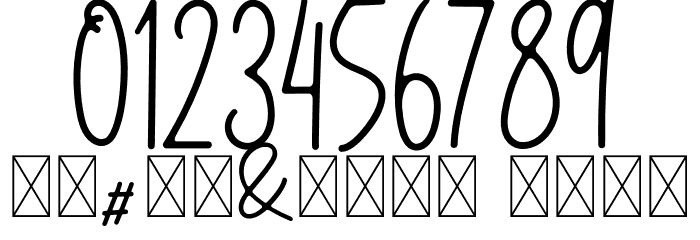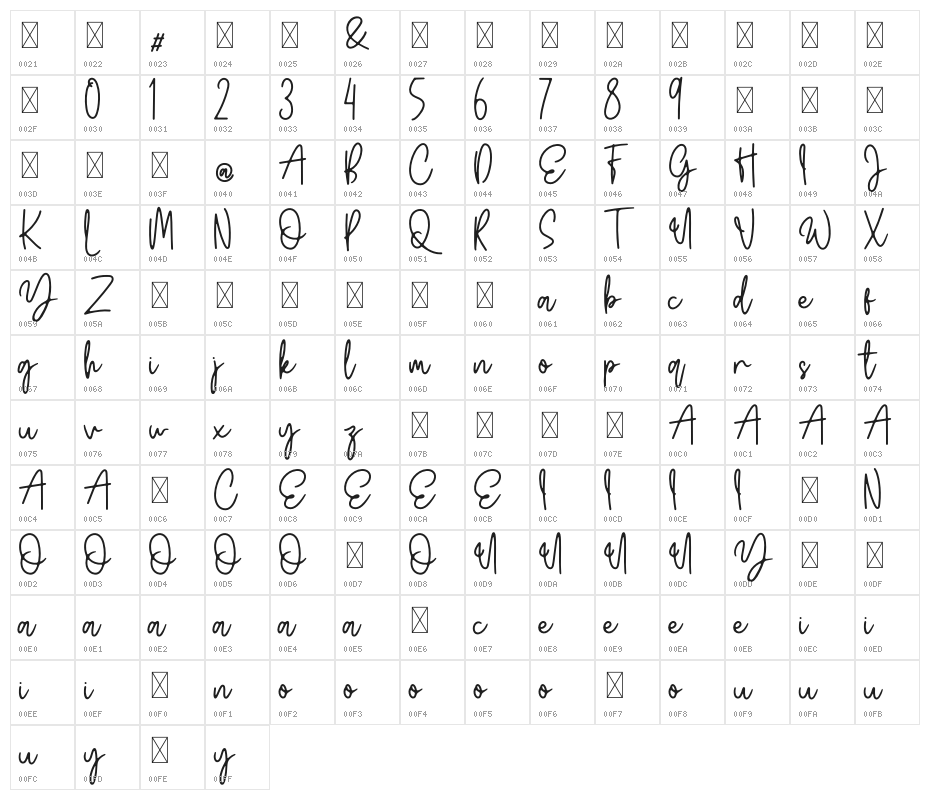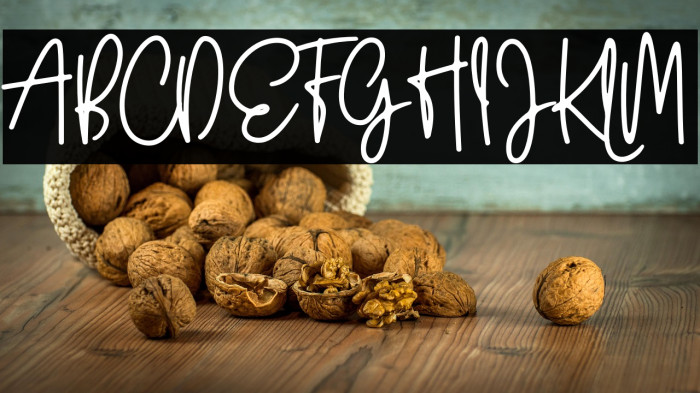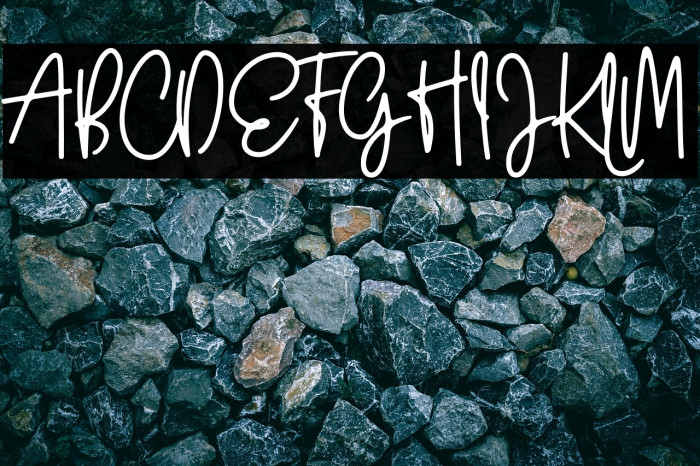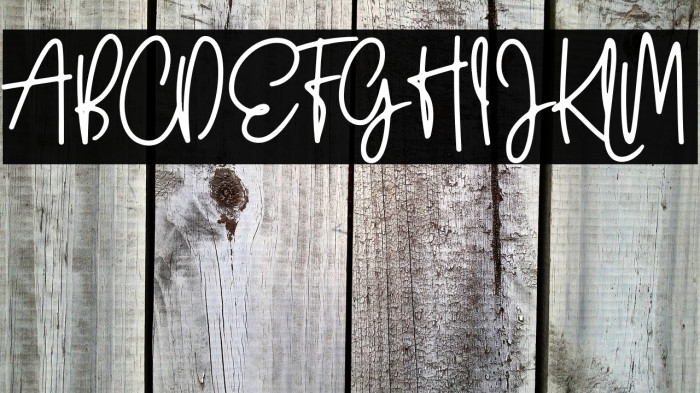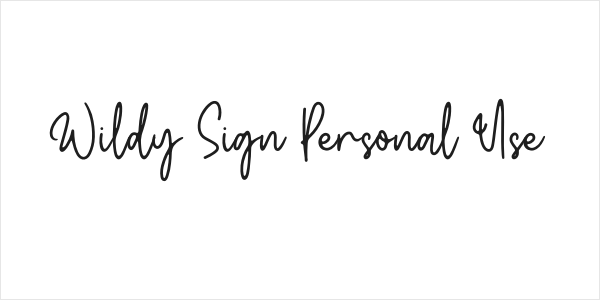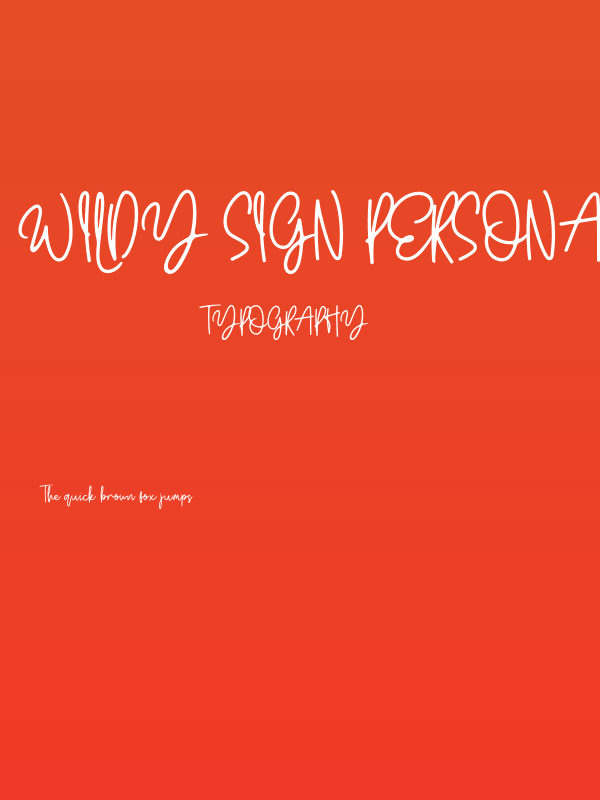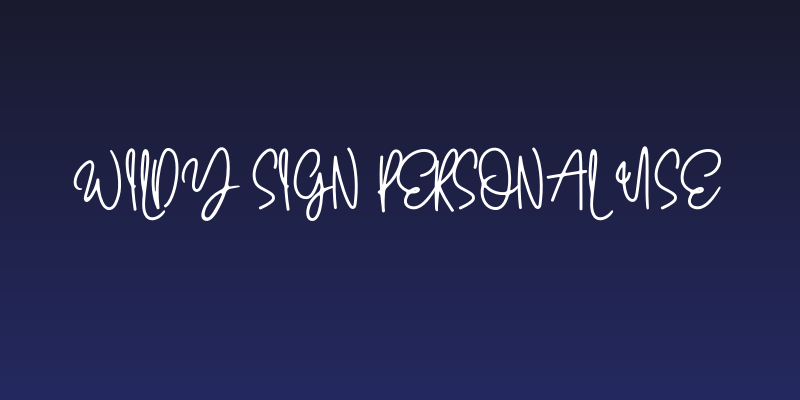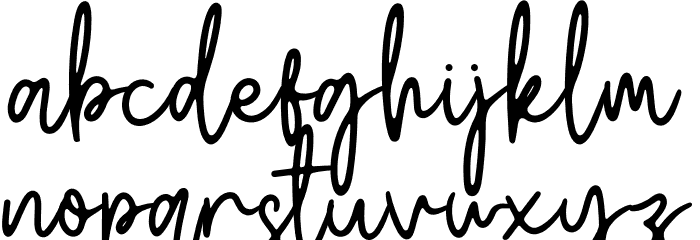
Wildy Sign Personal Use Font
Wildy Sign Personal Use Description
This font features a lively and expressive handwritten style, characterized by its fluid and dynamic strokes. The uppercase letters are tall and slightly narrow, with a playful, casual flair that suggests movement and spontaneity. The lowercase letters maintain this energetic feel, with some letters extending below the baseline, adding to the font's whimsical nature. The numerals are consistent with the overall style, offering a clear and legible appearance. Special characters are included, though some appear as placeholders, indicating a focus on the primary alphabet and numerals. This font is ideal for projects that require a personal touch or an informal, friendly tone.
| Use Case | Logos, Headlines, Personal projects |
| Proposed Projects | Greeting cards, personal branding, social media graphics, and informal invitations. |